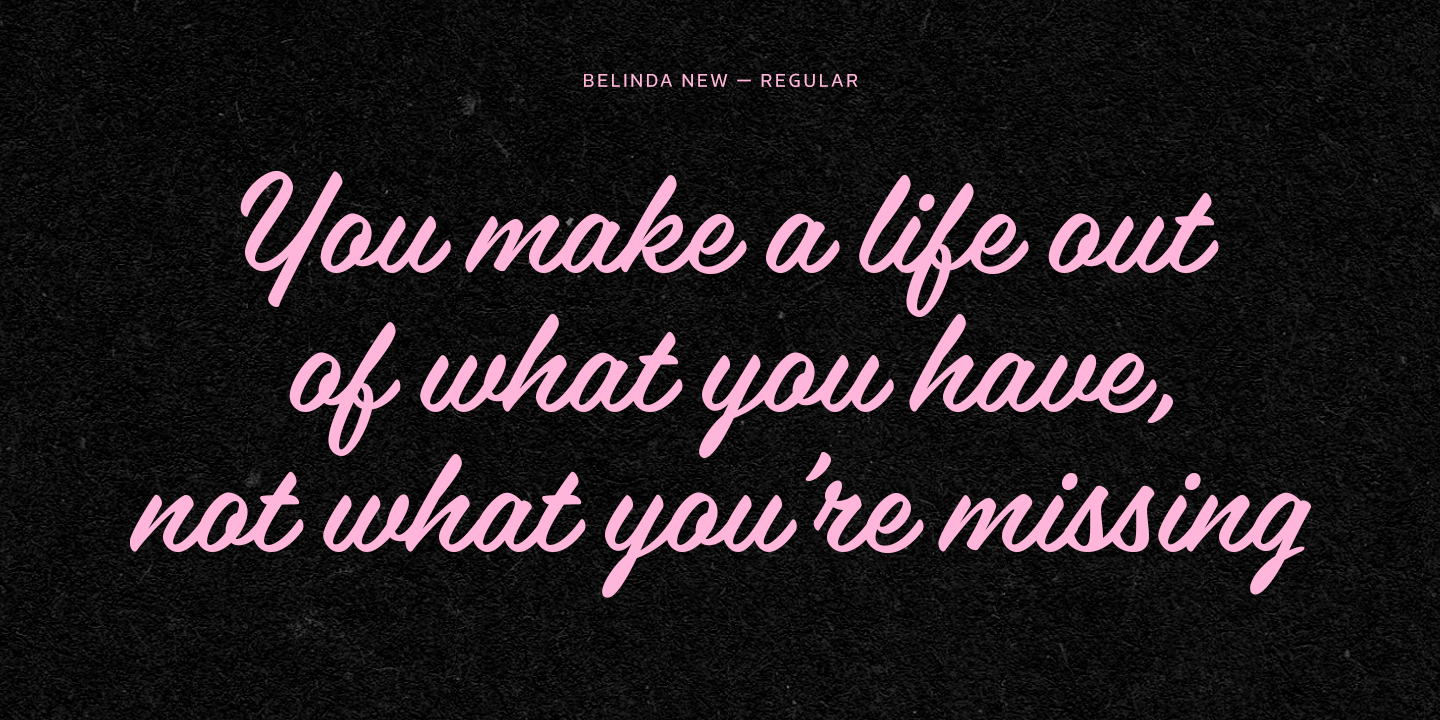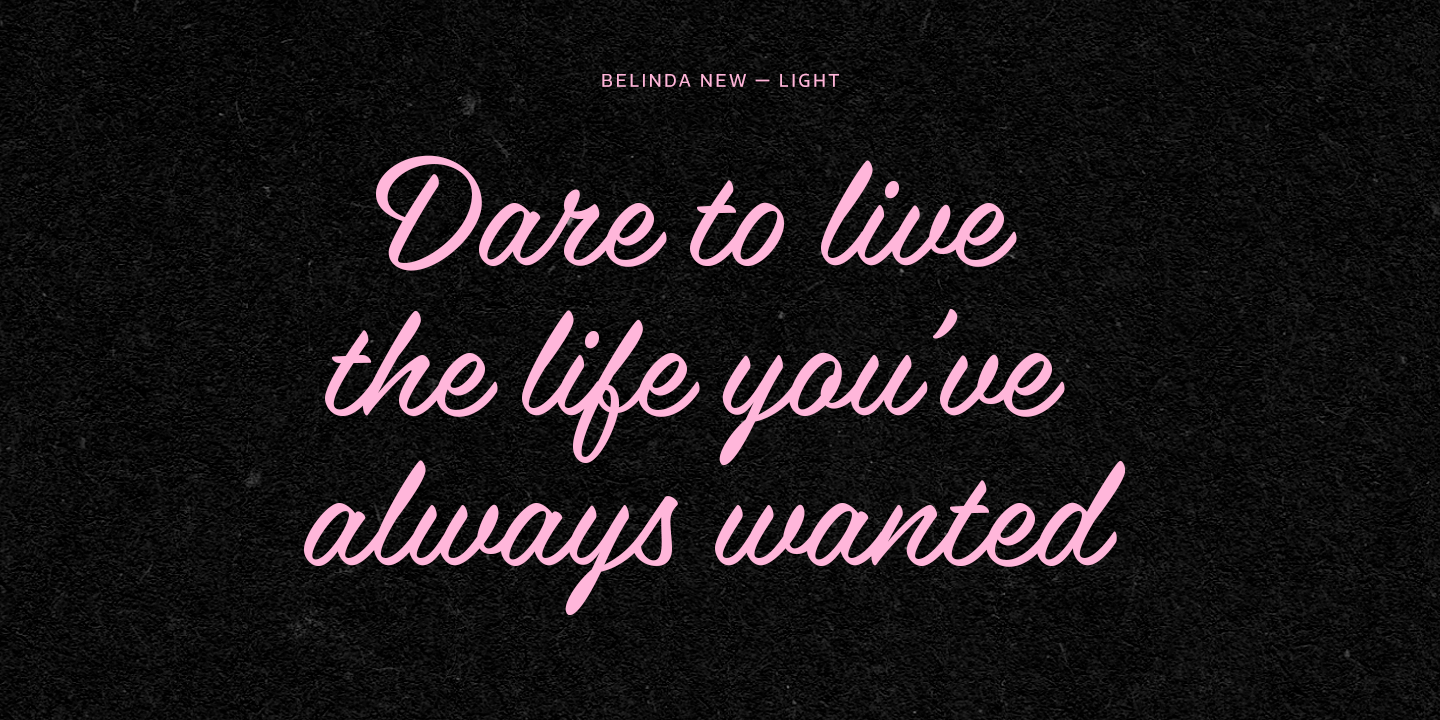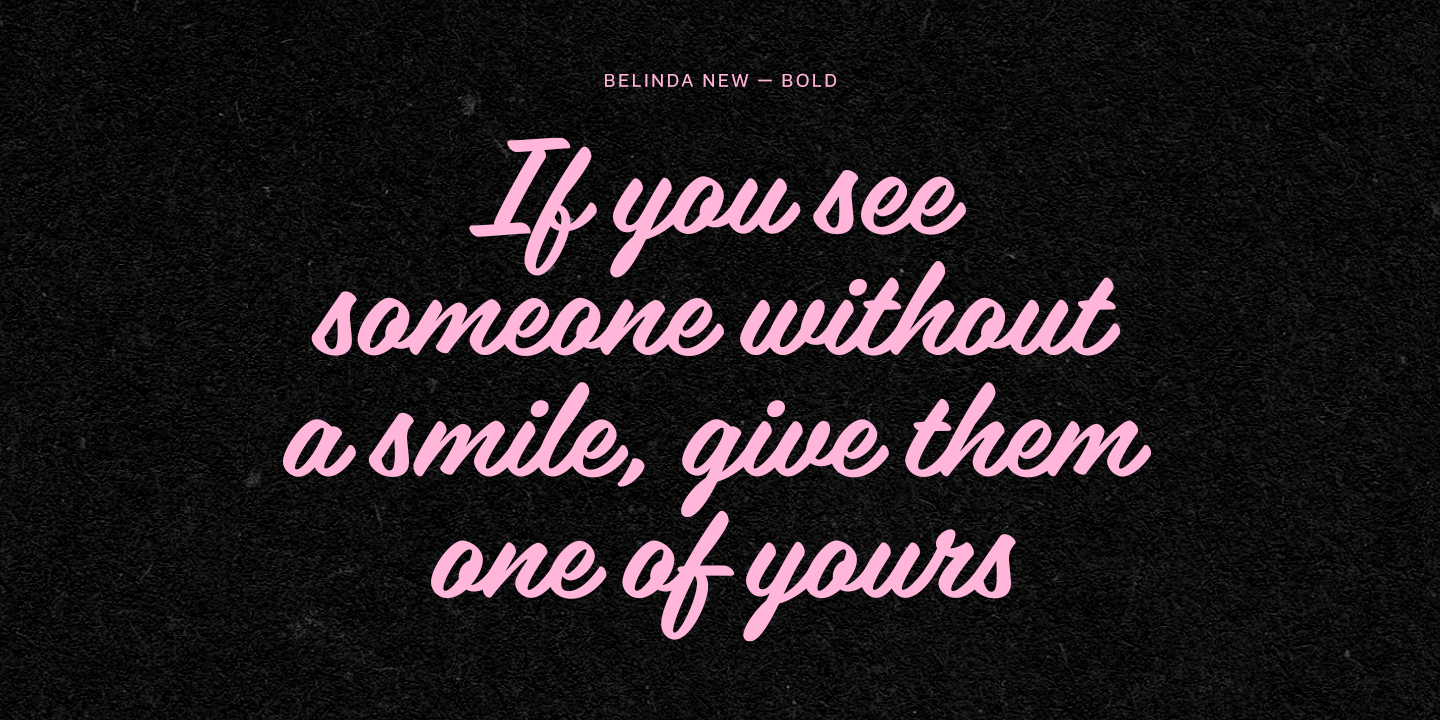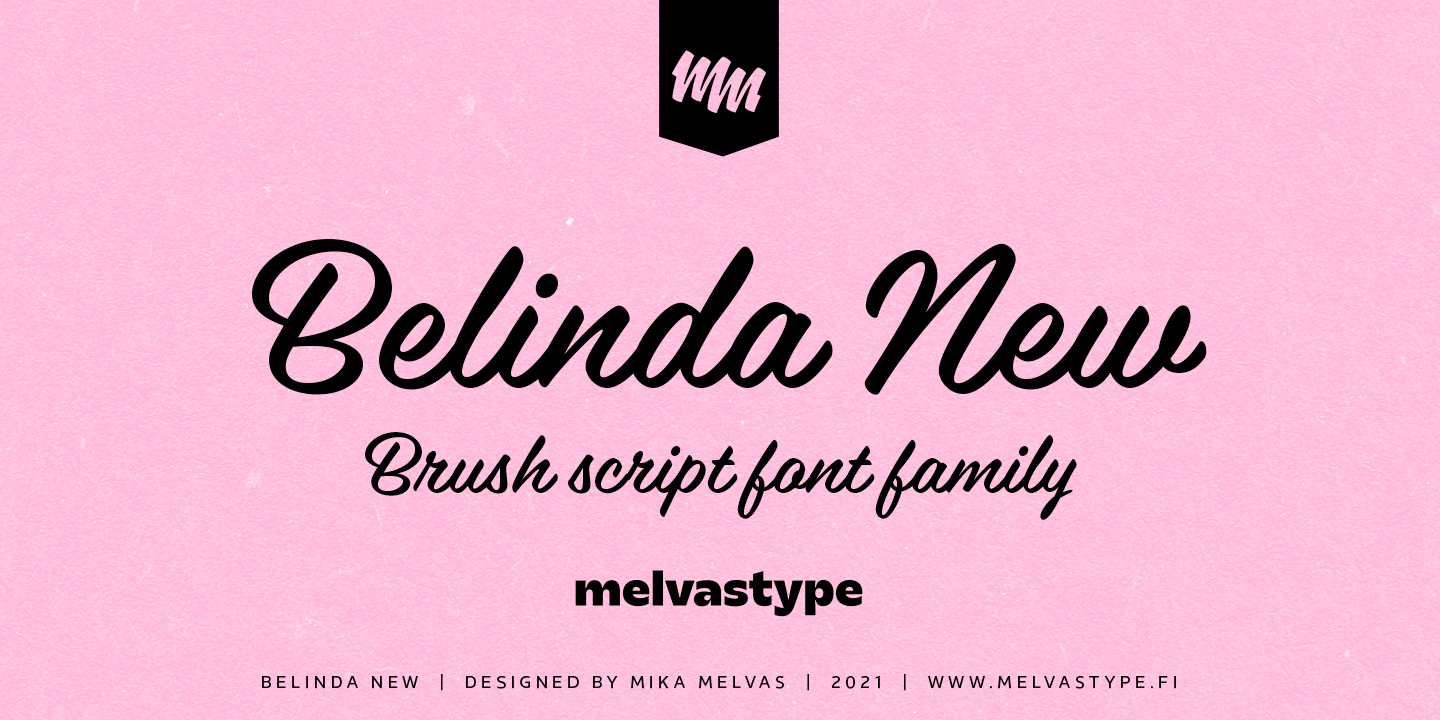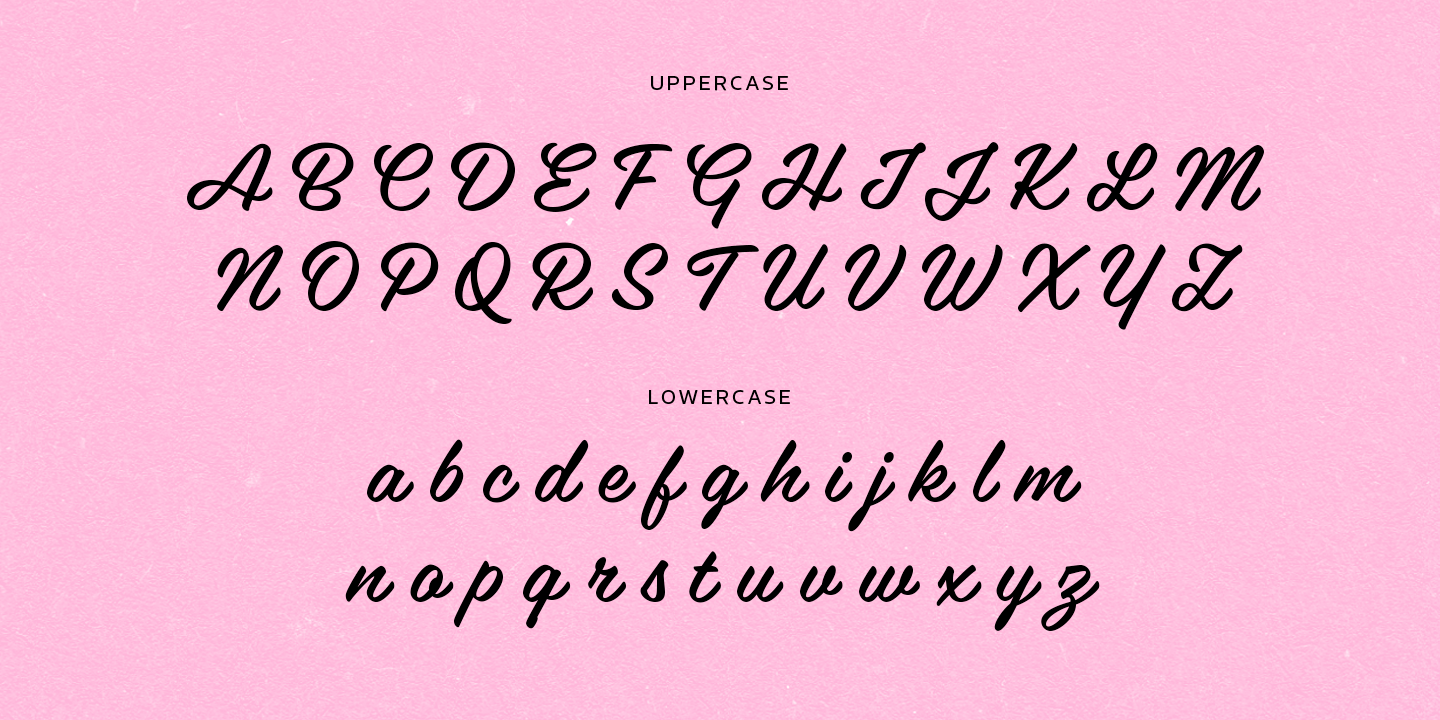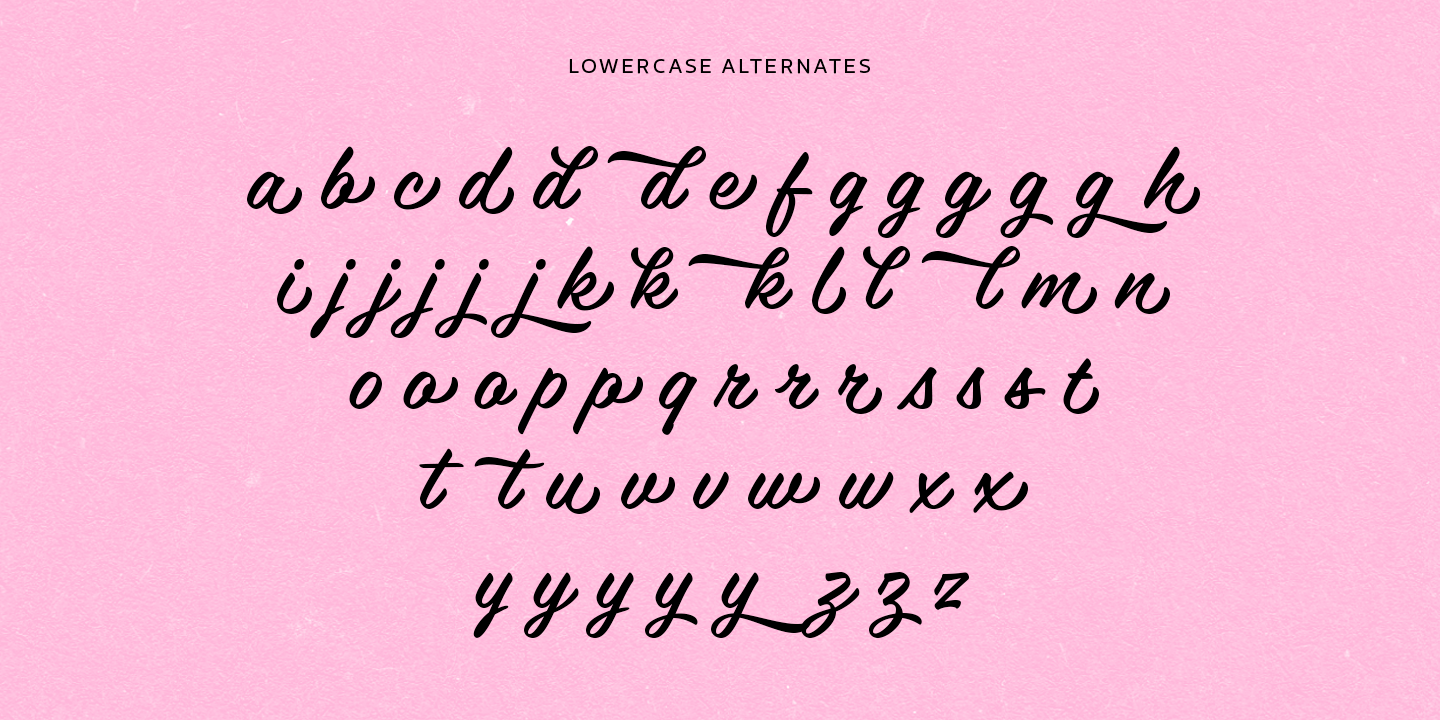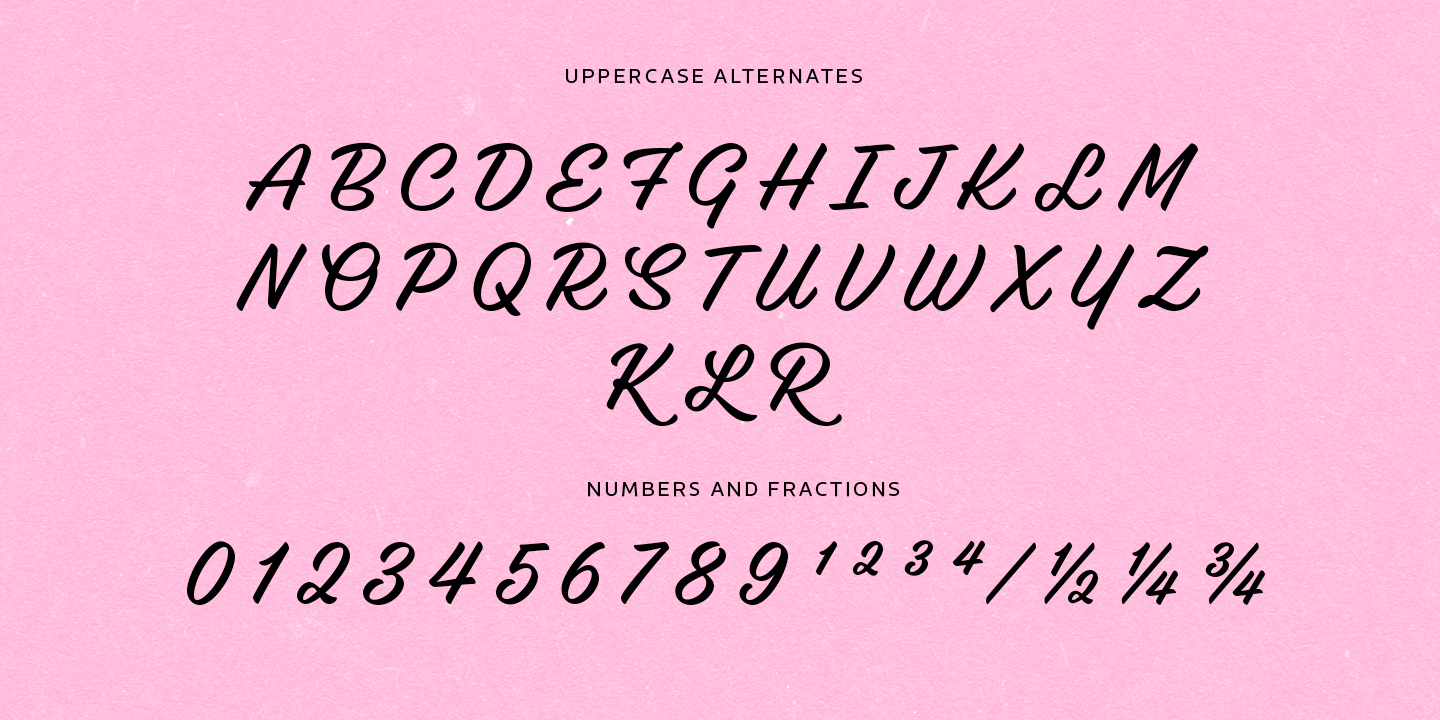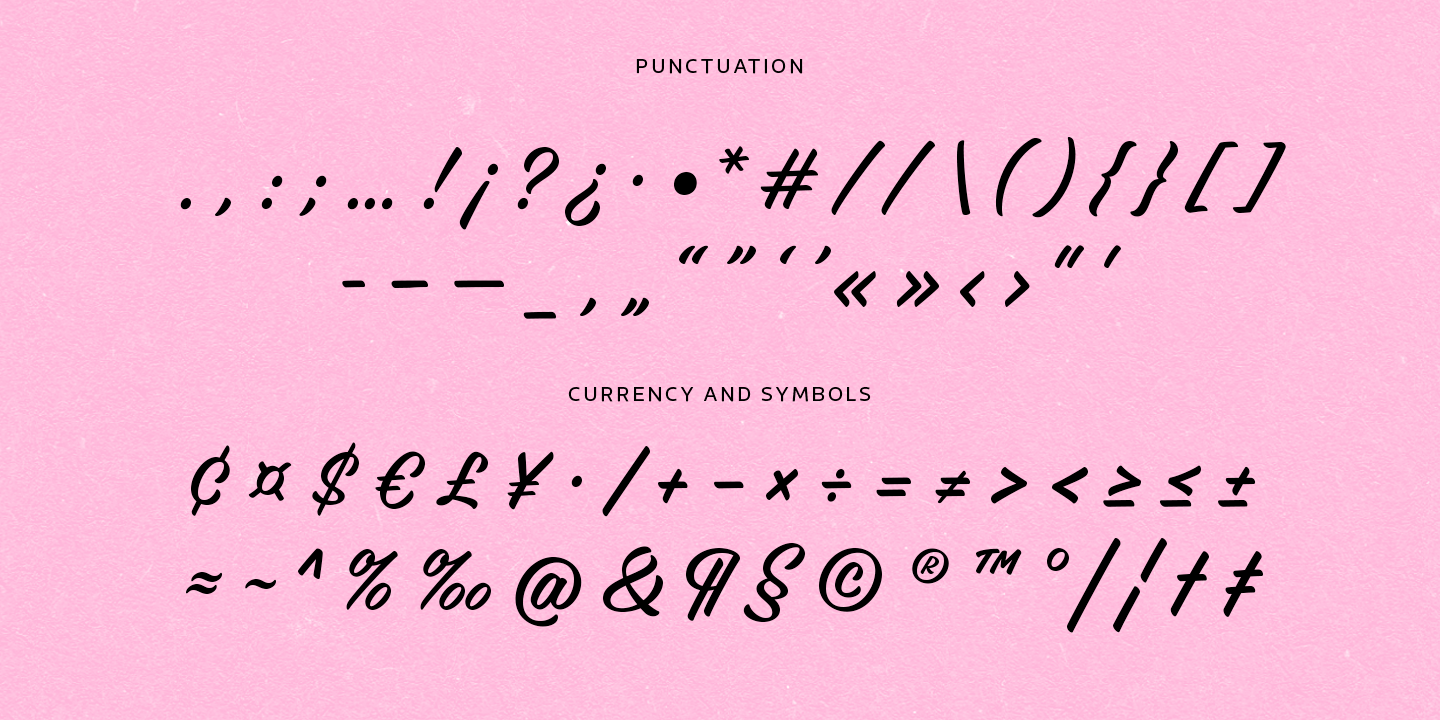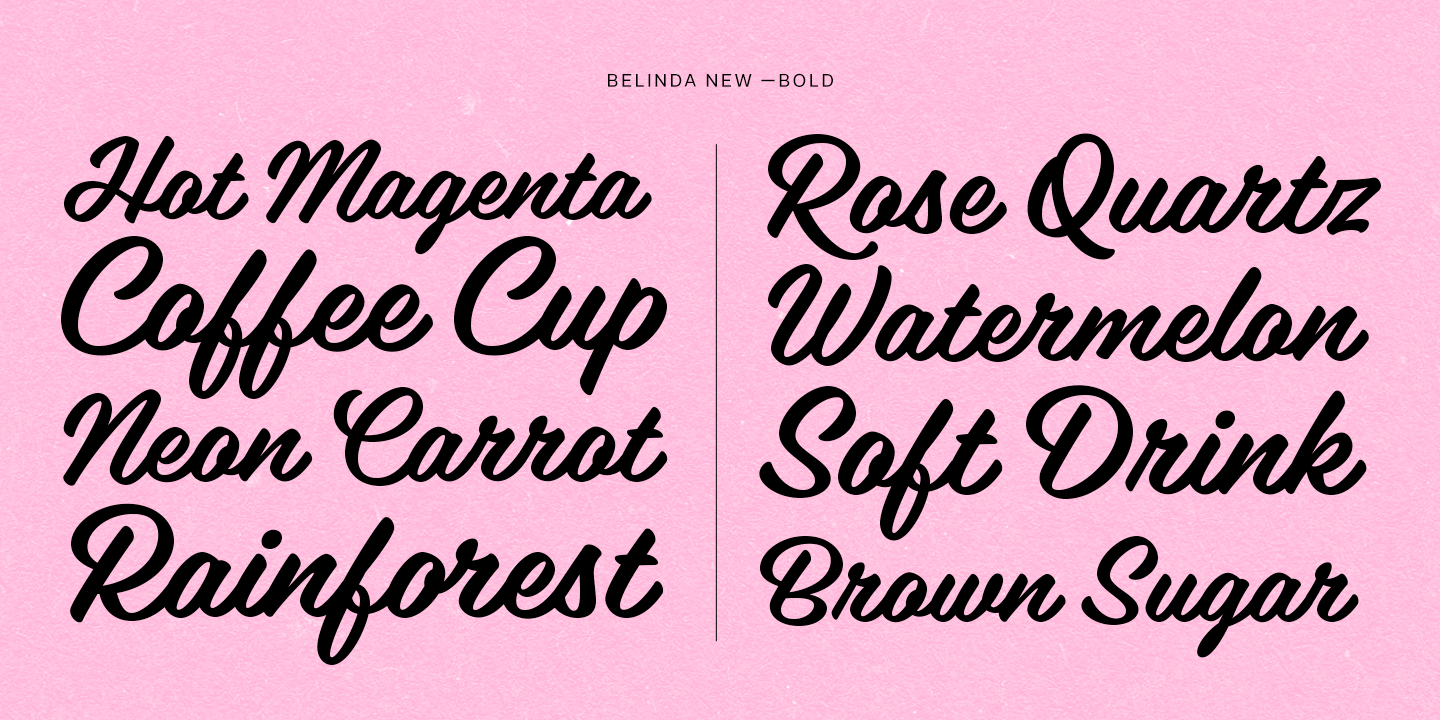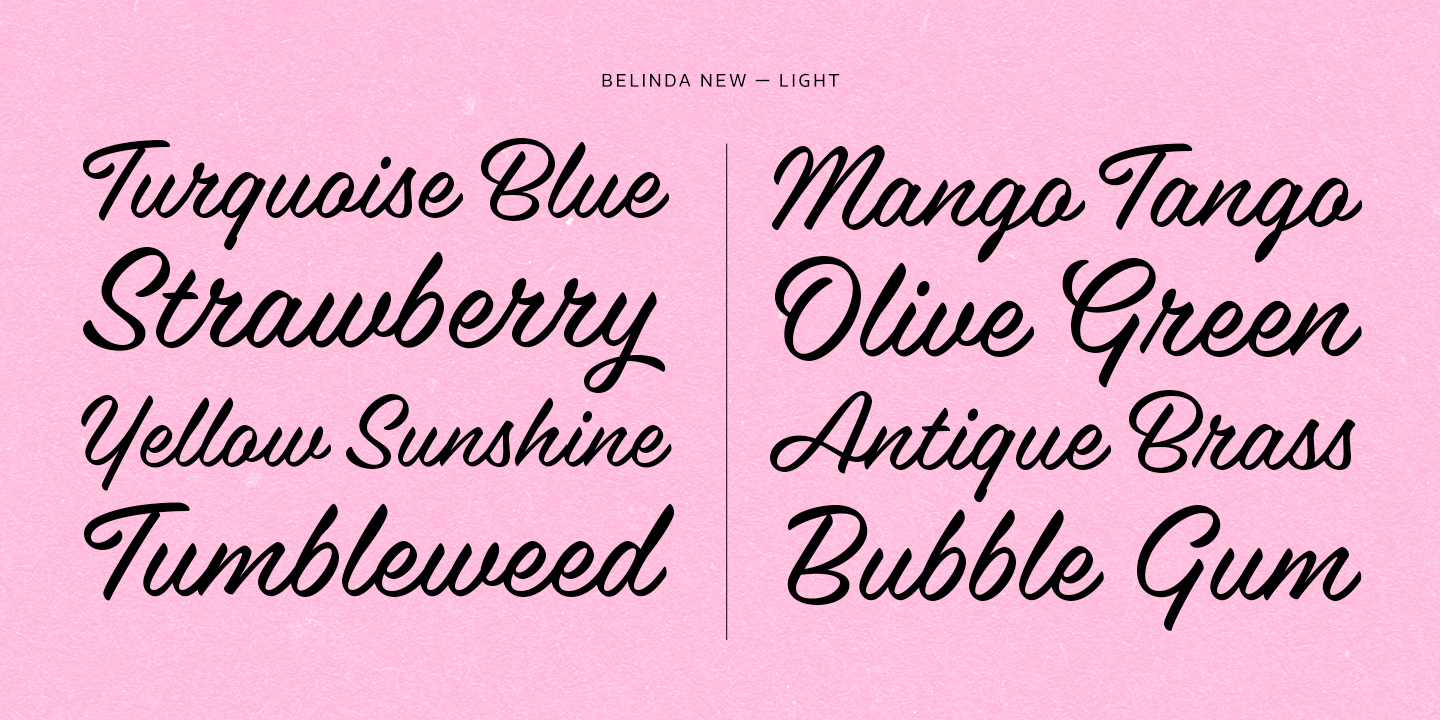
Belinda New
Belinda New is an updated version of the original Belinda I designed in 2011. Belinda New is a smooth, lining brush script font with a vintage and retro feel. It has two sets of uppercase and many alternates for lowercase letters. It is an excellent choice to use in logos, headlines and packages. You can also match it with a serif or sans serif fonts and use it as a secondary font in web design, magazines and branding.